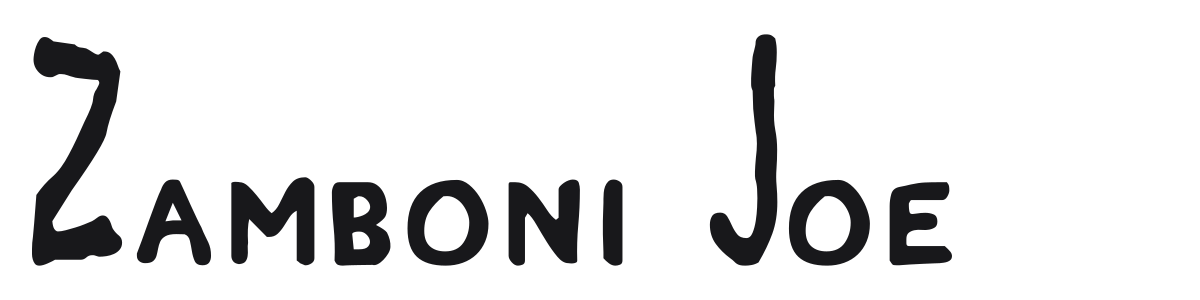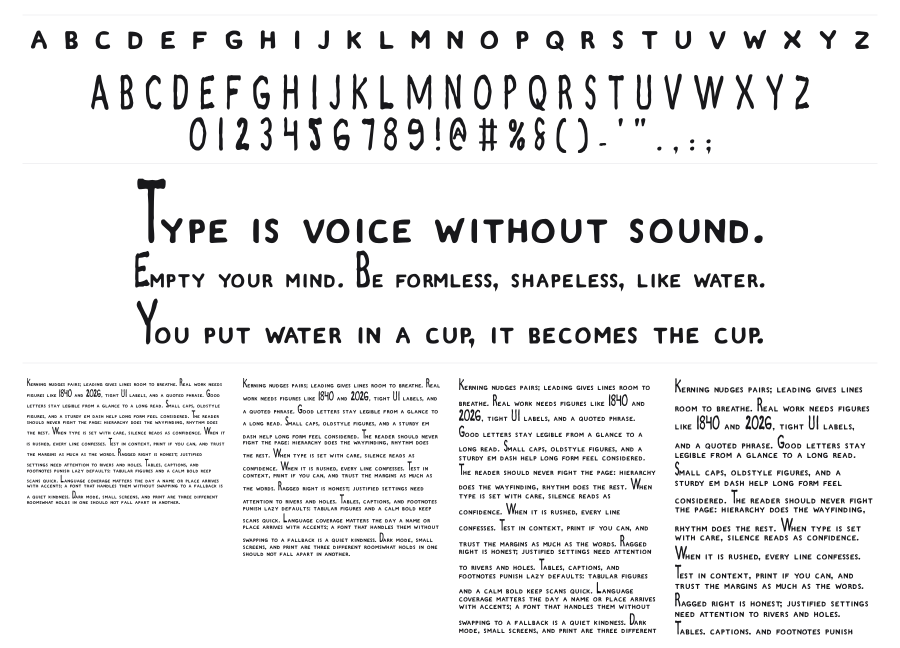
Zamboni Joe
Zamboni Joe is a loose, marker-style handwritten face from Iconian Fonts with uneven baselines and quirky letterforms that give it a genuinely off-the-cuff personality. The strokes feel quick and informal, like notes scrawled on a whiteboard mid-conversation. It works best as a display face for headlines, packaging, or casual branding where a little imperfection is the whole point.